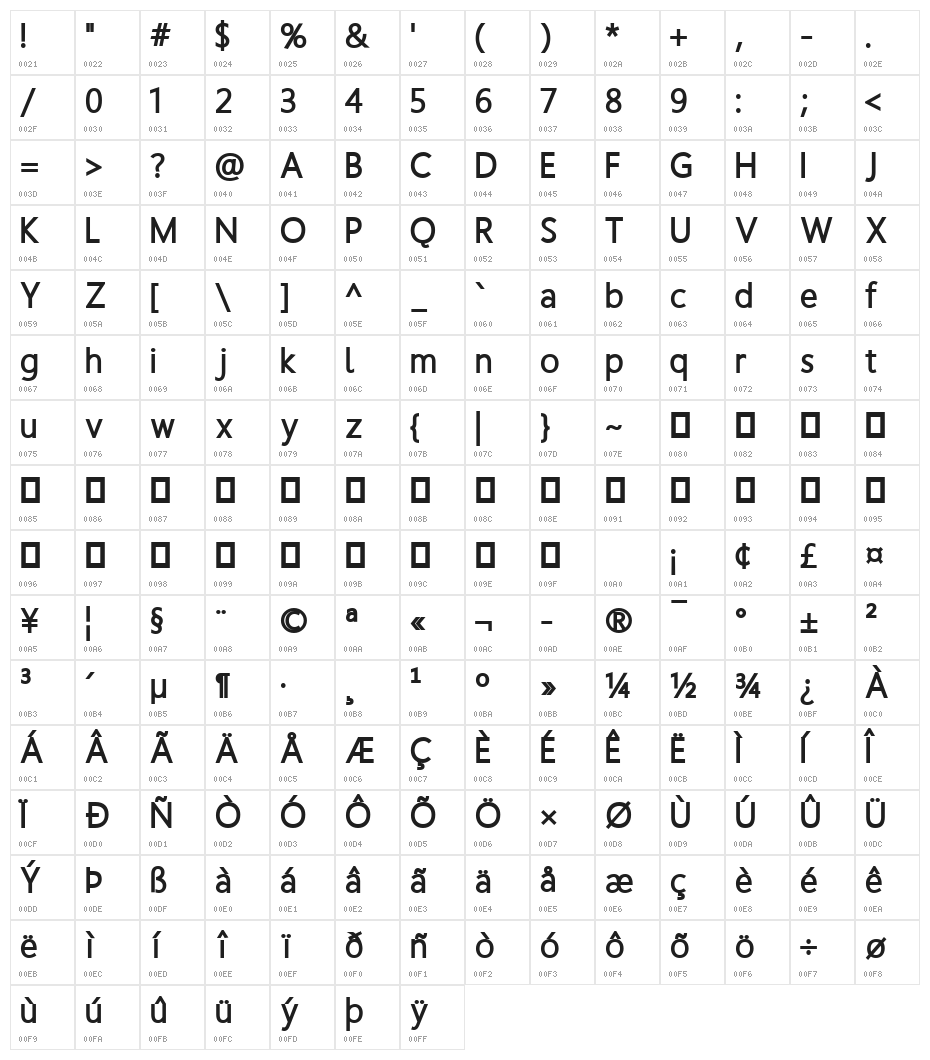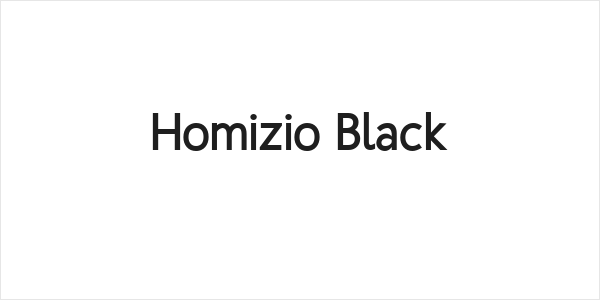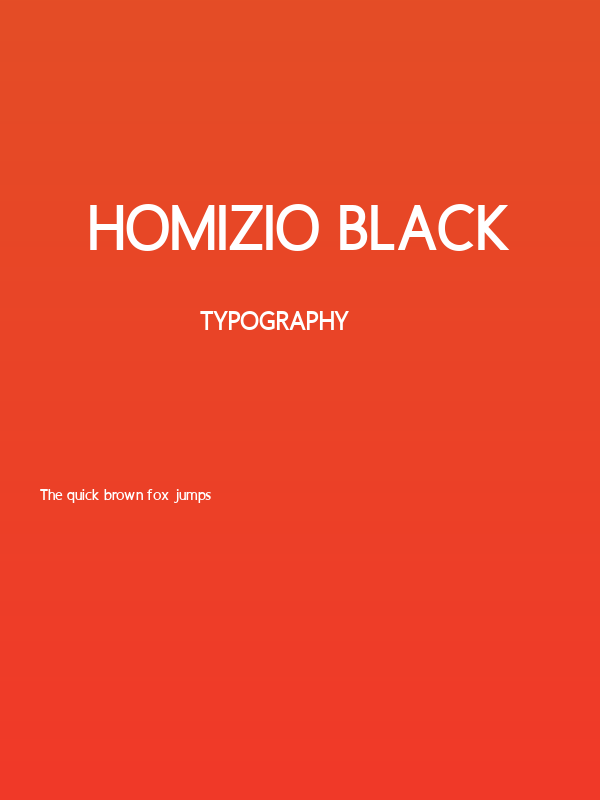
Homizio Black Font
Homizio Black Description
This font features a clean and modern sans-serif design with bold, uniform strokes that give it a strong presence. The characters are well-proportioned, with a consistent weight throughout, making it highly legible. The uppercase letters are slightly taller than the lowercase, providing a clear distinction between the two. The numerals are straightforward and align well with the overall style, while the special characters maintain the same boldness and clarity. This font's simplicity and boldness make it versatile for various design applications.
| Proposed Projects | Ideal for branding, headlines, posters, and digital media where a strong, modern presence is needed. |